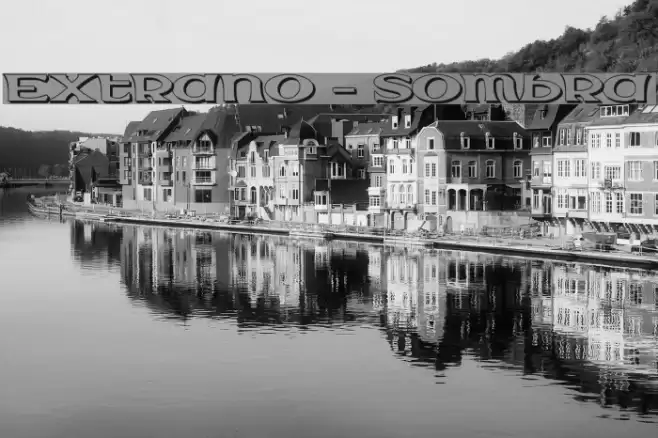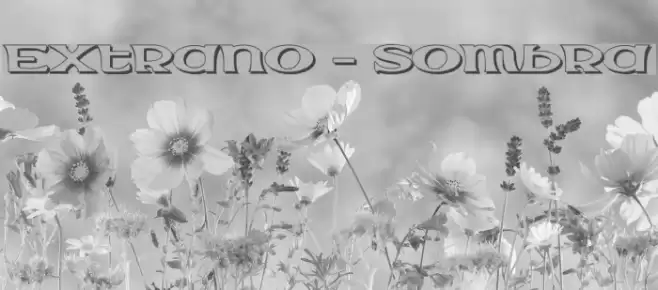
Extrano - Sombra Font
Extrano - Sombra Description
This font features a bold and decorative style with a unique shadow effect that adds depth and dimension to each character. The uppercase and lowercase letters are designed with a consistent width, giving a balanced and cohesive look. The numerals and special characters maintain the same stylistic elements, ensuring uniformity across all text. The font's playful yet structured appearance makes it suitable for eye-catching designs.
A bold, decorative font with a shadow effect, ideal for striking designs from Uncategorized fonts.
- Proposed Projects: This font is perfect for poster designs, branding projects, and any creative work that requires a bold statement. Its unique style can enhance logos, headlines, and promotional materials.